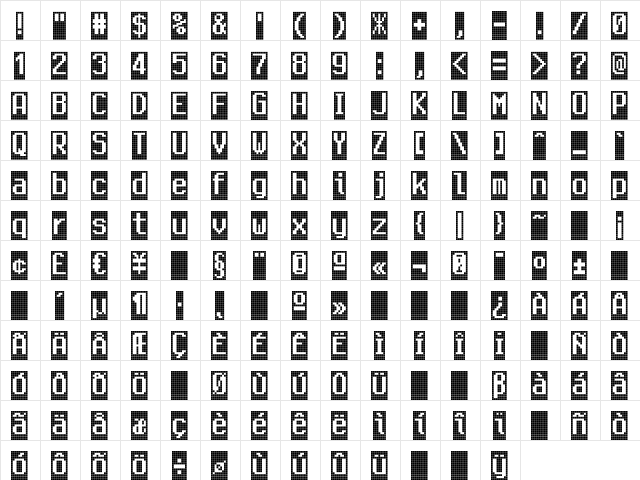
CallFiveL-Negativ Regular
Design Context for CallFiveL-Negativ Typeface
CallFiveL-Negativ takes a measured approach to typography — its balanced proportions and neutral character make it a reliable workhorse for both digital and print work.